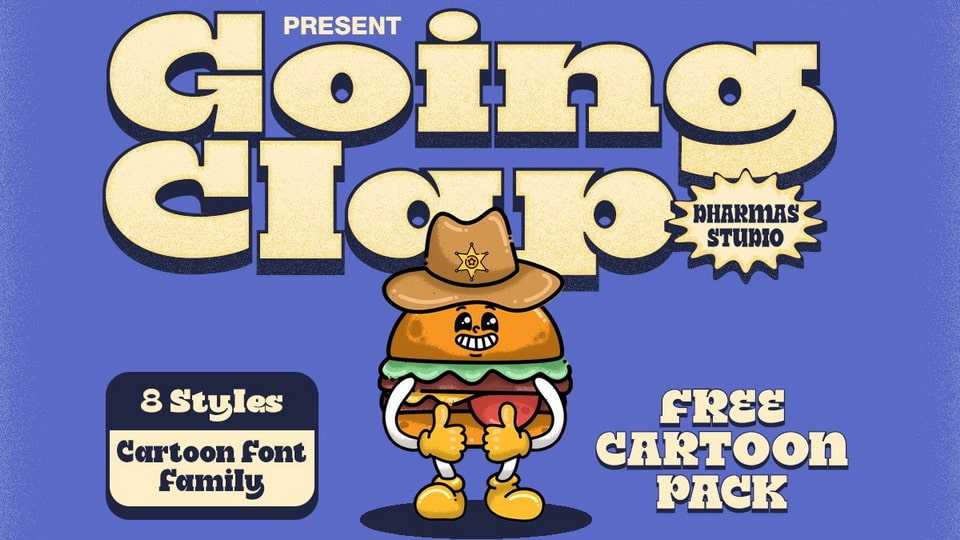
Download Going Clap font, a display typeface that’s all about bold and nostalgic vibes! This chunky slab serif typeface is your secret weapon for making text pop with artistic and vintage flair.